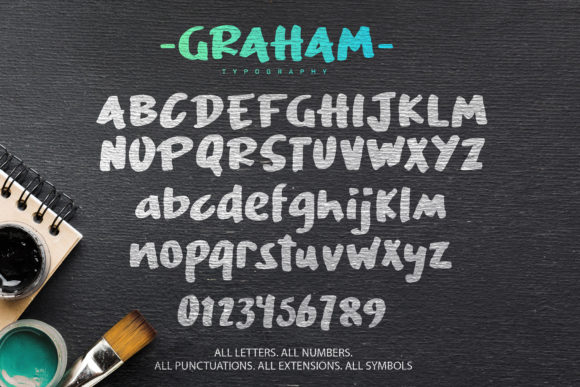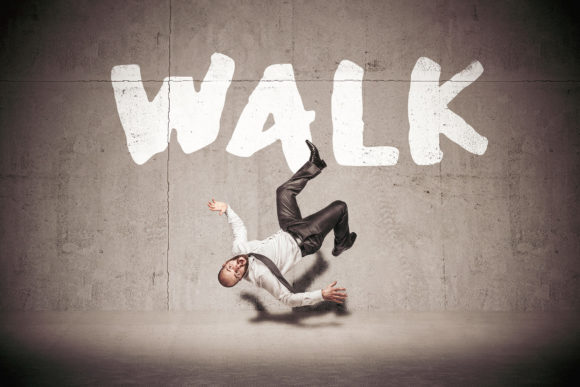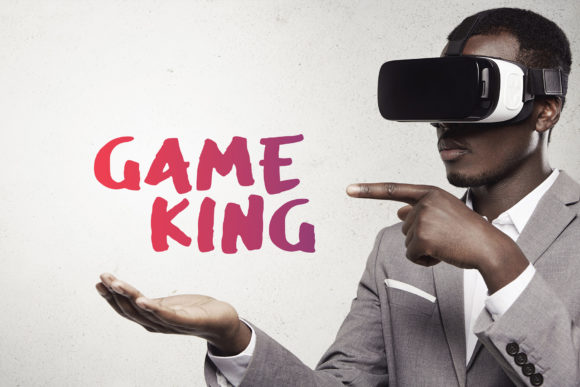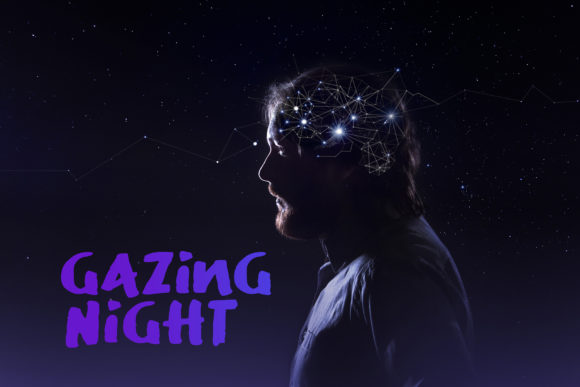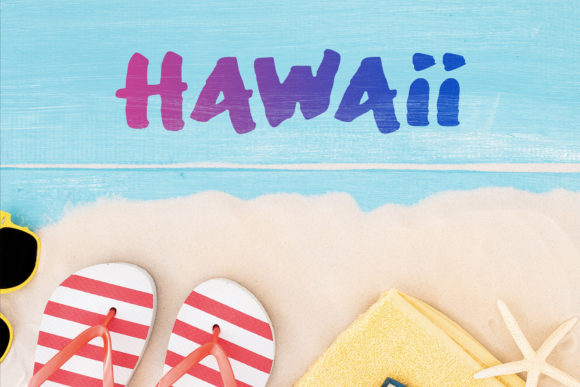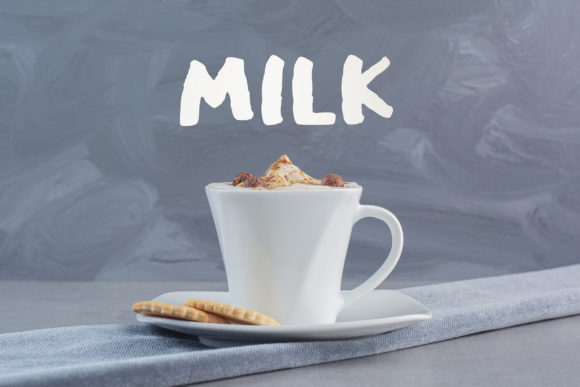
Discover the Unique Charm of Graham Typography Font
Are you tired of using the same old fonts for your designs? Look no further than Graham Typography Font, a carefully crafted display font that is sure to add a touch of originality and cheerfulness to your projects. With its distinctive style, Graham Typography is the perfect choice for designers and crafters who want to create something truly unique.
What is Graham Typography Font?
Graham Typography Font is a display font that has been meticulously designed to stand out from the crowd. Its original and cheerful style makes it perfect for a variety of design projects, from branding and advertising to packaging and signage. Whether you’re looking to create a bold statement or add a touch of whimsy to your design, Graham Typography Font is the perfect choice.
Key Features of Graham Typography Font
- Original and Cheerful Style: Graham Typography Font has a unique and playful style that is sure to grab attention.
- Carefully Crafted: Each letter has been carefully carved to ensure a high level of legibility and aesthetic appeal.
- Display Font: Graham Typography Font is designed specifically for display purposes, making it perfect for headlines, titles, and other prominent text elements.
- Versatile: This font can be used for a wide range of design projects, from digital designs to print materials.
Why Choose Graham Typography Font?
There are many reasons why Graham Typography Font stands out from the crowd. Here are just a few:
- Uniqueness: Graham Typography Font is a one-of-a-kind font that will help your designs stand out from the competition.
- Legibility: Despite its unique style, Graham Typography Font is highly legible, making it perfect for use in a variety of contexts.
- High-Quality Design: Graham Typography Font has been designed to the highest standards, ensuring a high level of quality and aesthetic appeal.
How to Use Graham Typography Font
Graham Typography Font is easy to use and can be incorporated into a wide range of design projects. Here are a few ideas to get you started:
- Branding and Advertising: Use Graham Typography Font to create bold and eye-catching headlines and titles that will grab attention.
- Packaging Design: Add a touch of whimsy to your packaging designs with Graham Typography Font.
- Signage: Use Graham Typography Font to create eye-catching signs and displays that will stand out from the crowd.
- Digital Designs: Incorporate Graham Typography Font into your digital designs, such as social media graphics and website headers.
Tips for Getting the Most Out of Graham Typography Font
Here are a few tips for getting the most out of Graham Typography Font:
- Experiment with Different Sizes: Graham Typography Font looks great in a variety of sizes, so don’t be afraid to experiment to find the perfect size for your design.
- Play with Color: Graham Typography Font looks great in a wide range of colors, so try out different color combinations to find the one that works best for your design.
- Combine with Other Fonts: Graham Typography Font pairs well with a variety of other fonts, so try combining it with other fonts to create a unique and interesting design.
In conclusion, Graham Typography Font is a unique and versatile display font that is perfect for designers and crafters who want to add a touch of originality and cheerfulness to their designs. With its carefully crafted letters and highly legible design, Graham Typography Font is the perfect choice for a wide range of design projects. So why not give it a try and see the difference it can make in your designs?